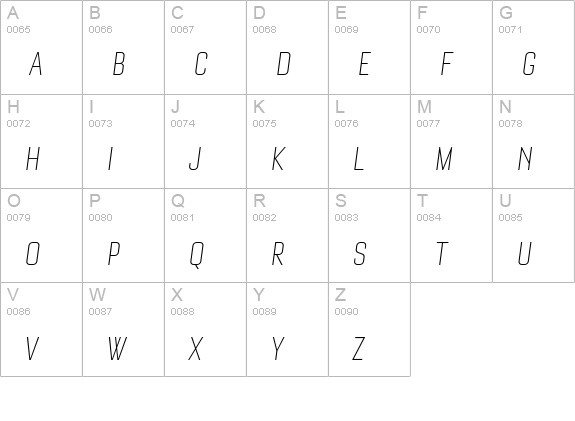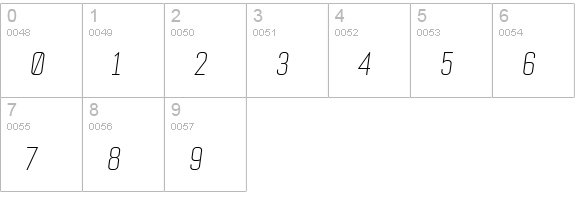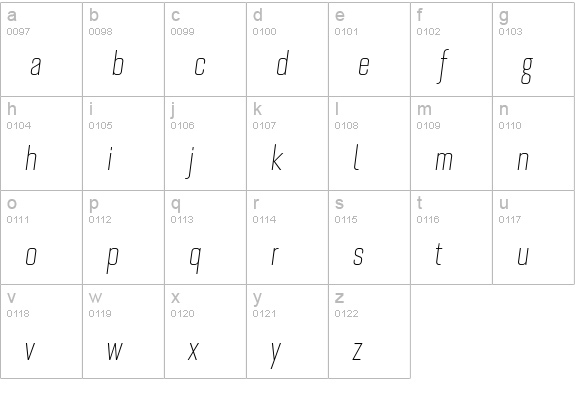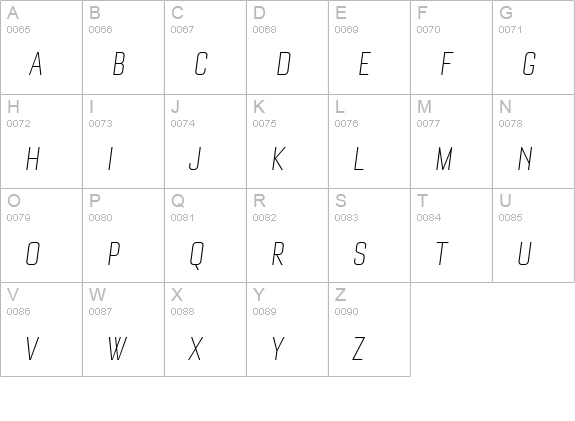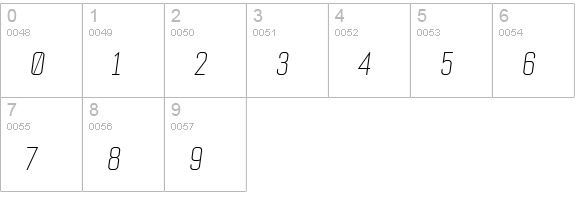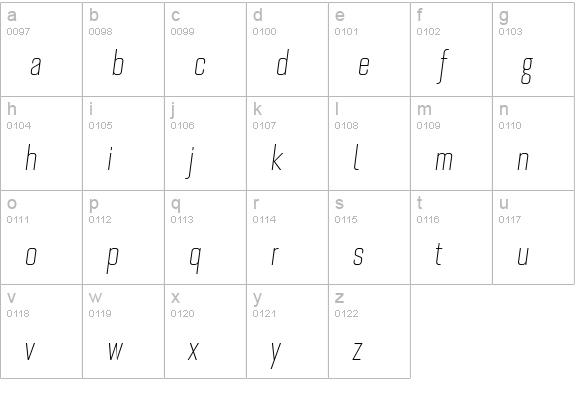
Bourgeois LightCondItal Font Details
Bourgeois LightCondItal font exudes elegance and sophistication with its sleek and modern design. This stylish typeface is perfect for adding a touch of class to any project, whether it be for branding, editorial design, or web content. The italic style of the font adds a sense of movement and flair, making it a versatile choice for both headings and body text. What's even better is that Bourgeois LightCondItal font is available for free download at FontsMarket.com. This means you can easily access this premium font without having to spend a dime. Don't miss out on the opportunity to elevate your designs with this exquisite typeface that combines luxury with readability. Download Bourgeois LightCondItal font today and make a statement with your typography.